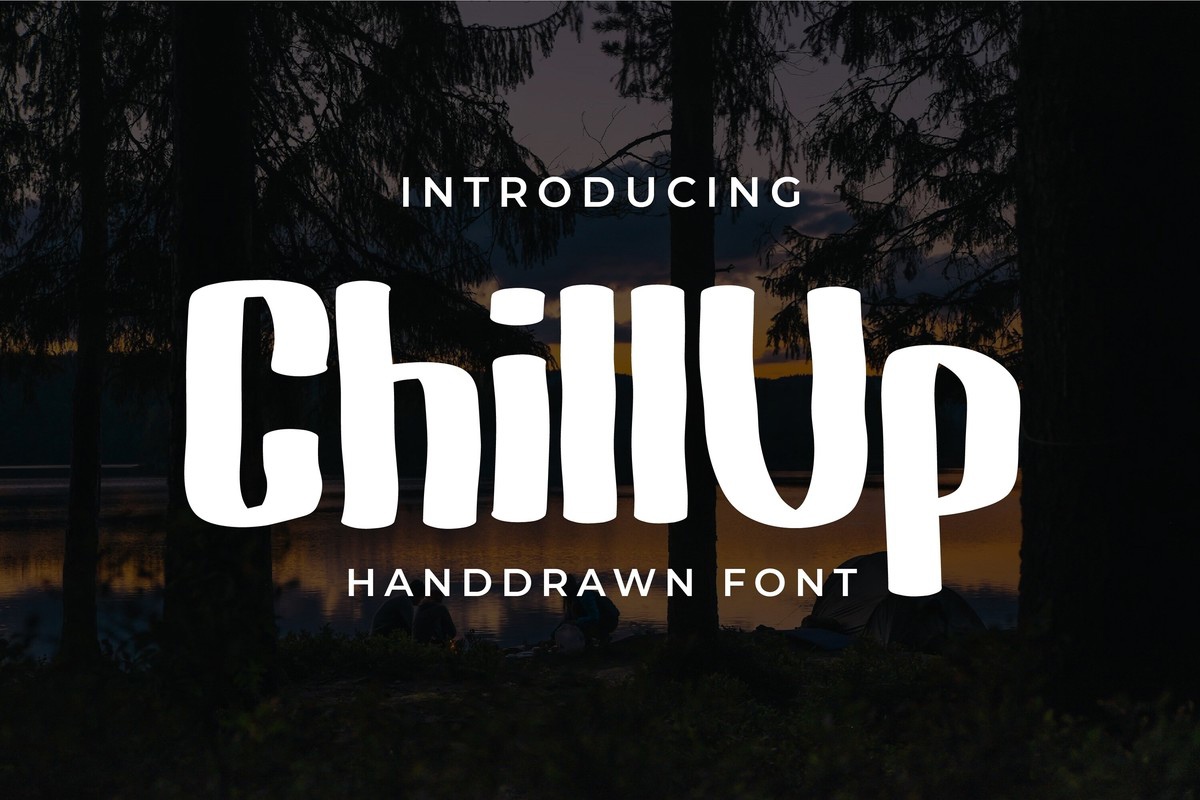
Chillcup Font
Chillcup Font is perfect for cozy coffee shop branding, relaxed café signage, casual tea house menus, chill beverage company logos, laid-back café culture materials, warm coffee roaster packaging, comfortable neighborhood bistro displays, peaceful tea ceremony services, stress-free beverage marketing, and welcoming café atmosphere designs. This relaxing typeface brings coffee shop comfort and chill vibes to any beverage-focused design project.
Chillcup Font is exciting because it captures the soothing comfort and relaxed atmosphere that makes coffee shops the perfect escape from daily stress, featuring laid-back letterforms that evoke the warm steam rising from a perfect cup and the peaceful moments that come from savoring quality beverages in comfortable surroundings. Its chill character instantly conveys relaxation, comfort, and the simple pleasure of slowing down with a warm drink.
Chillcup Font family includes Light, Regular, Medium, and Bold weights with relaxed alternates, cozy flourishes, café-inspired ornamental elements, and chill symbols that enhance the comfortable aesthetic, providing coffee designers with warm tools for creating typography that celebrates the peaceful culture of coffee and tea enjoyment in comfortable, welcoming spaces.
Café culture designers love Chillcup Font for its exceptional ability to convey comfort and relaxation through casually crafted letterforms. The font's chill character and café details create immediate associations with morning coffee rituals, afternoon tea breaks, and the comfortable social spaces where people gather to relax, connect, and enjoy the simple pleasure of perfectly prepared beverages.
The design philosophy behind Chillcup Font celebrates the important role that coffee and tea culture plays in creating peaceful moments and comfortable social spaces that help people slow down, connect with others, and find relaxation in our busy world, making it particularly effective for cafés, coffee roasters, and beverage brands that prioritize comfort and relaxation. Café teams working on chill experiences find this font essential.
Whether used for neighborhood coffee shops, relaxed tea houses, or chill beverage brands, Chillcup Font delivers the perfect combination of comfort and café authenticity. Its relaxed appeal and coffee culture charm make it an indispensable choice for beverage businesses that create peaceful spaces, promote relaxation, and celebrate the comforting tradition of sharing warm drinks in welcoming, stress-free environments.